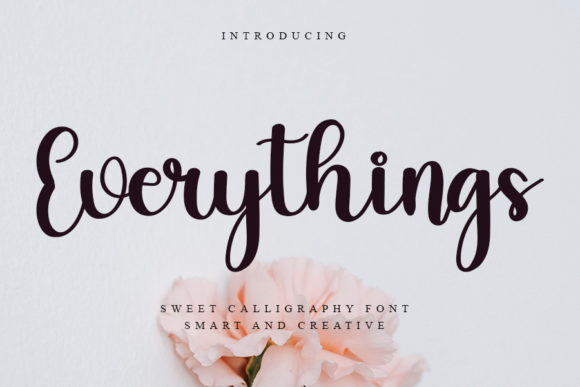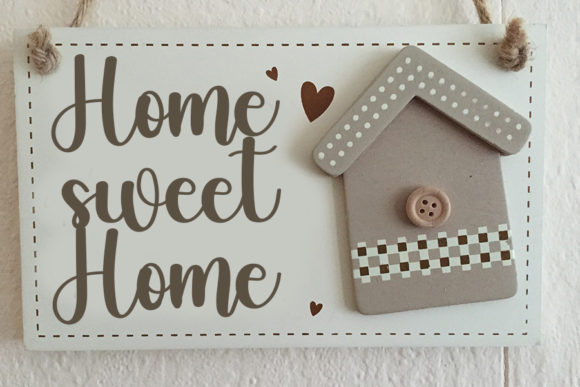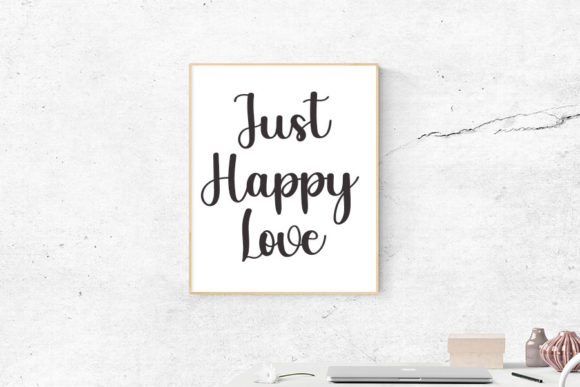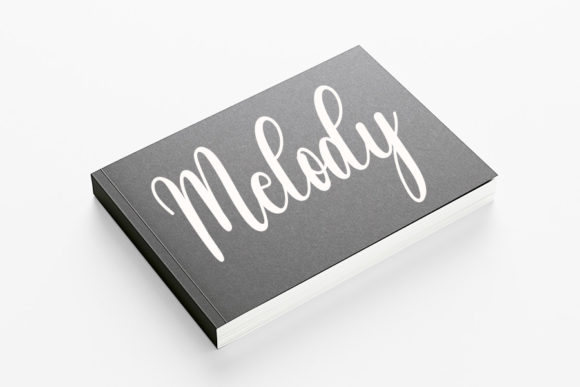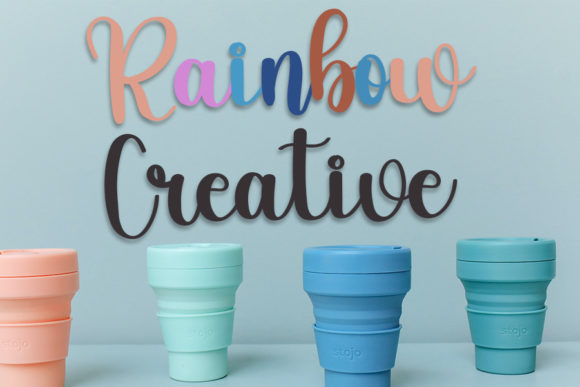
Everythings Font
About Everythings Font
Everythings is a lovely and delicate script font that exudes elegance and class. This font was particularly crafted for those who need a beautiful and refreshing look to their designs.